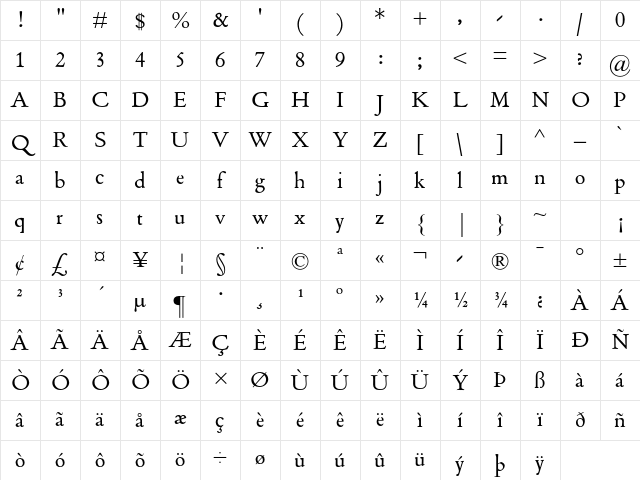
Poliphilus MT Std Regular Free Font
Design Context for Poliphilus MT Std
Poliphilus MT Std is a composed and adaptable typeface that performs quietly and consistently across a wide range of design contexts.